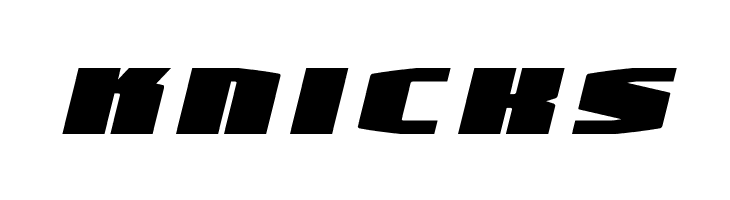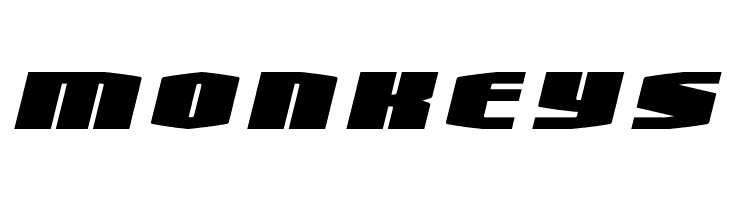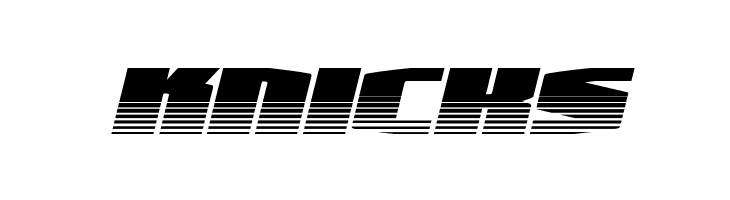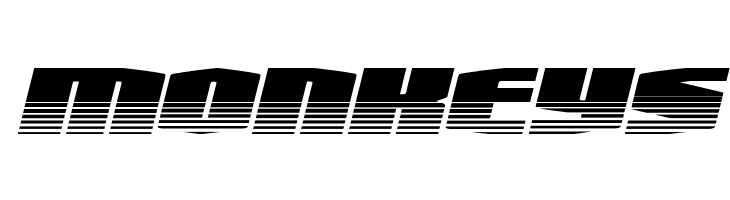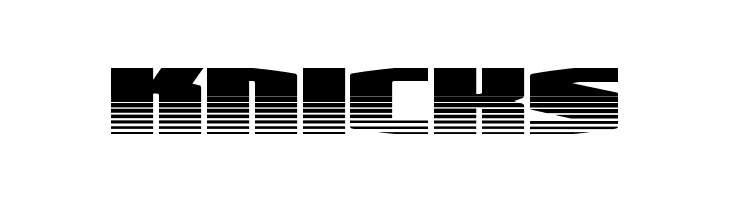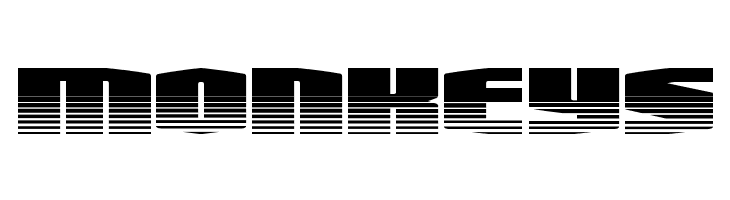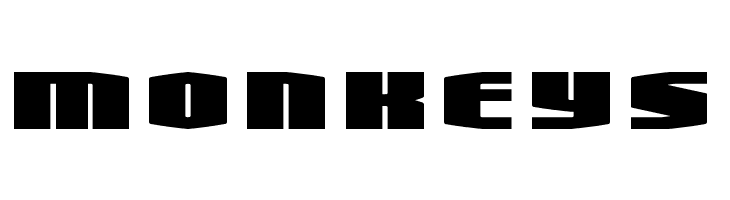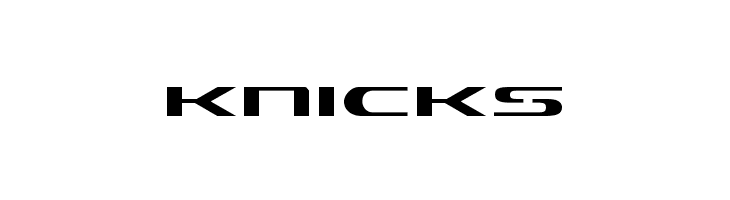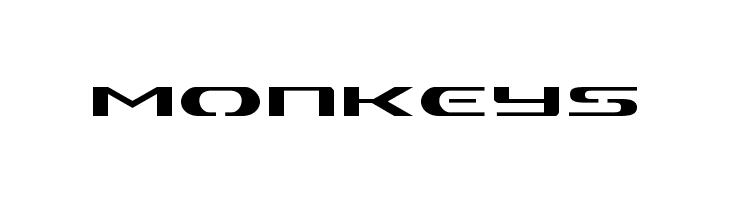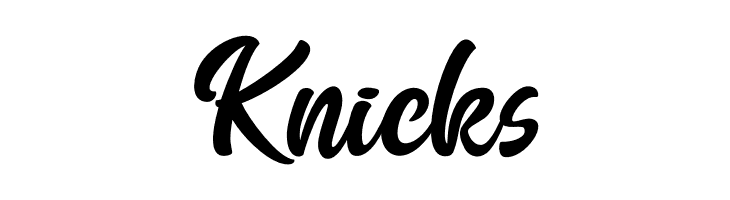
• Alpha Century Title
A bold, geometric font with a futuristic and modern style.
• Alpha Century Title Italic
A bold, italic, futuristic font with sharp angles and dynamic style.
• Alpha Century Twotone
A bold, futuristic font with a two-tone gradient effect.
• Alpha Century Twotone Italic
A bold, futuristic italic font with a two-tone line effect.
• Alpha Danthe PERSONAL USE Italic
A modern, elegant script font with flowing, cursive strokes.
• Alpha Danthe PERSONAL USE Regular
A graceful and elegant handwritten font with delicate strokes.
• Alpha Men
A bold, futuristic font with geometric shapes and sharp angles.
• Alpha Monday
A bold, cursive font with a flowing, handwritten style.
• Alpha Mutation
A bold, decorative font with a fragmented, pixelated texture.
• Alpha Outline
A geometric, angular outline font with a futuristic and edgy style.